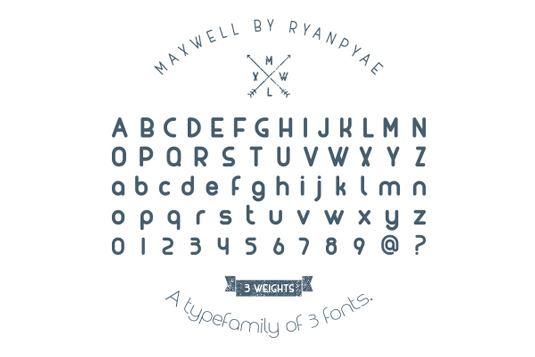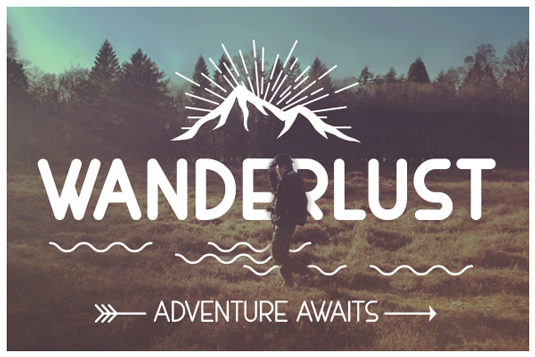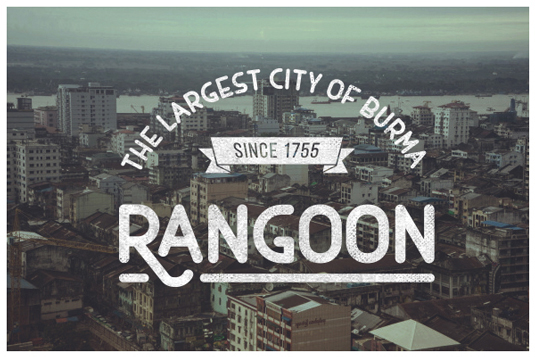
Font of the day: Maxwell
Maxwell by Ryan Pyae
Kicking off our font of the day posts this week is Maxwell by senior graphic designer Ryan Pyae. A typeface with three weights, Pyae comments the design is "applicable for web, print and motion graphics, and perfect for headlines, logotypes and wordmarks".